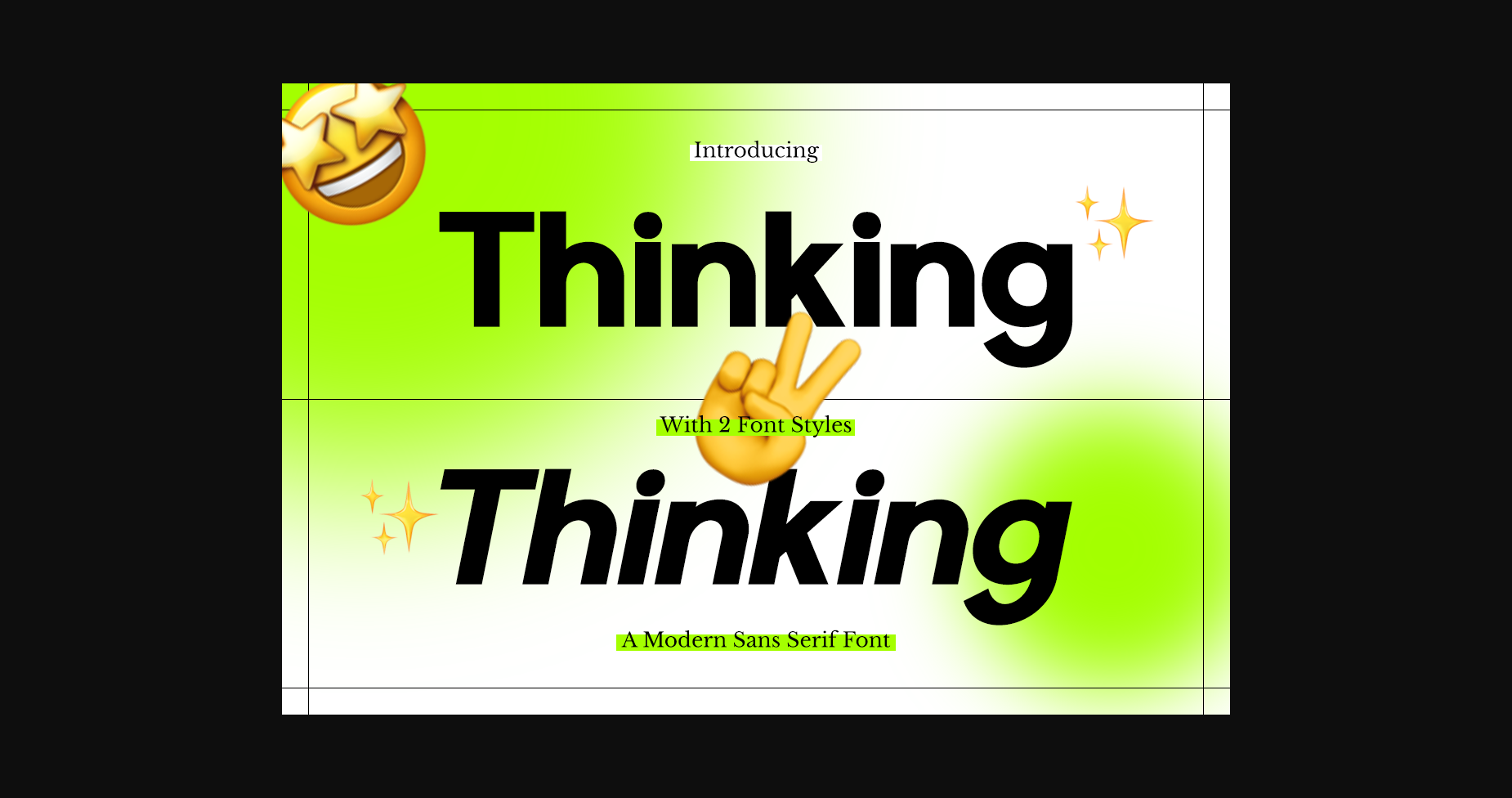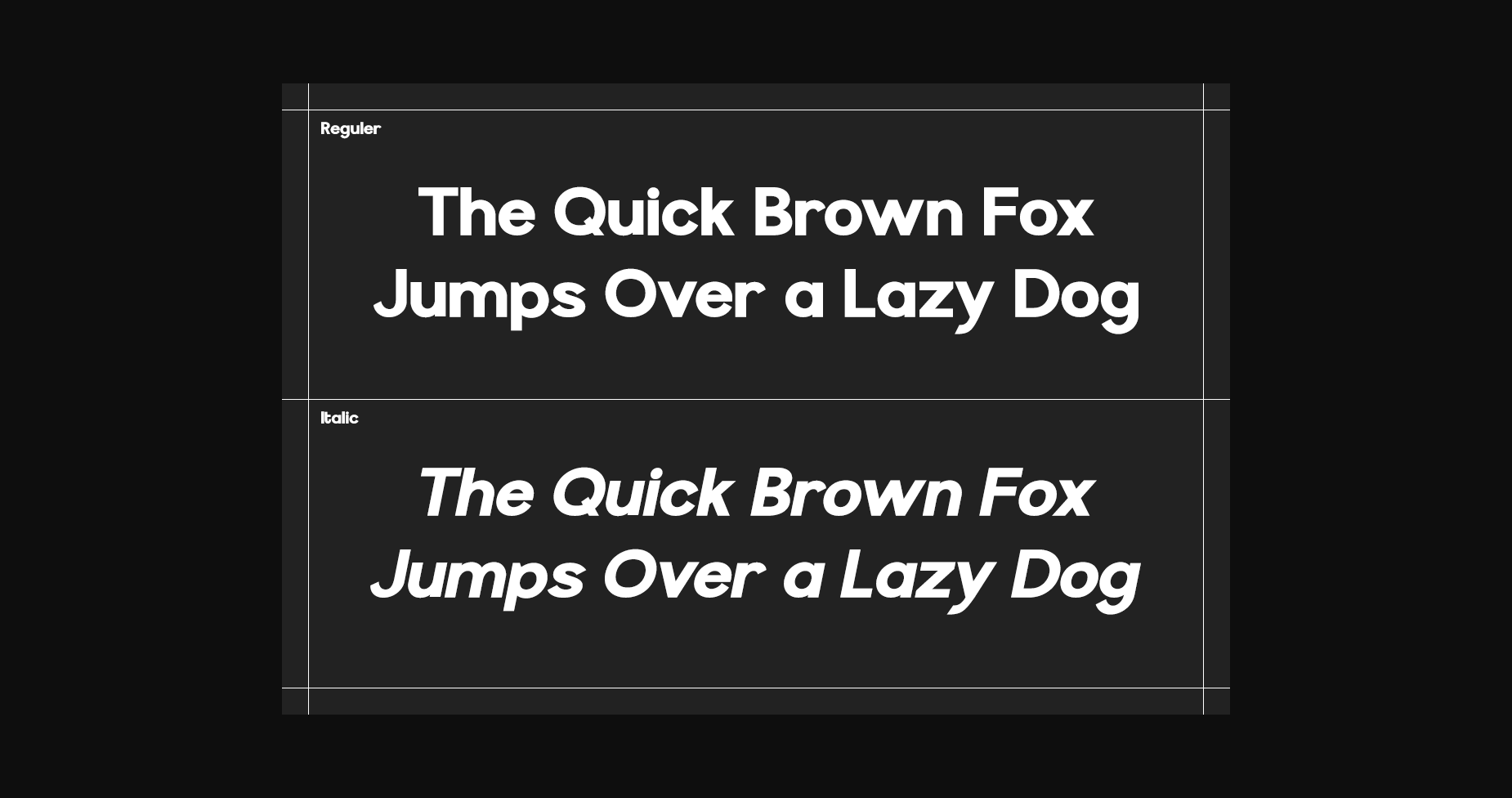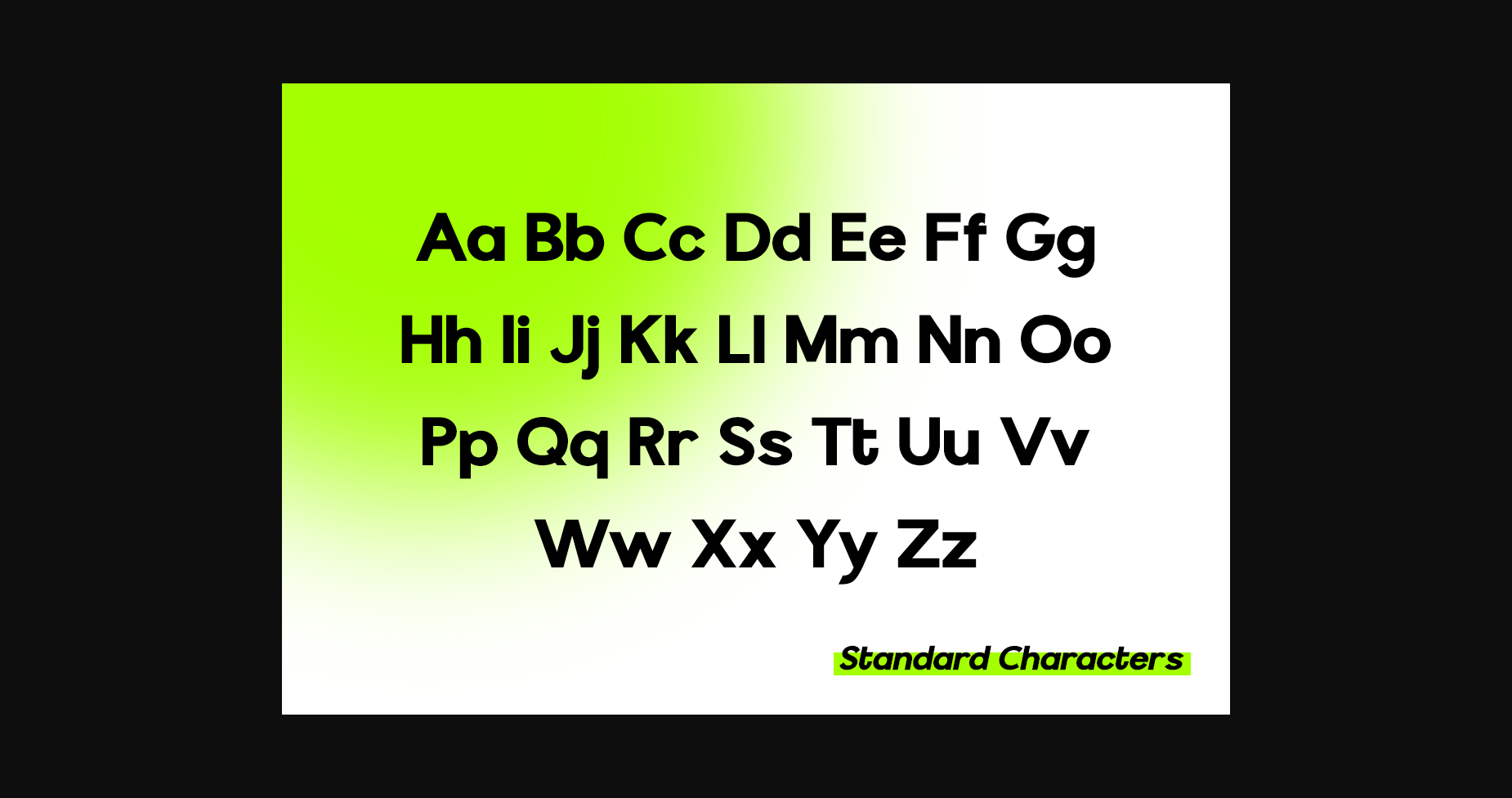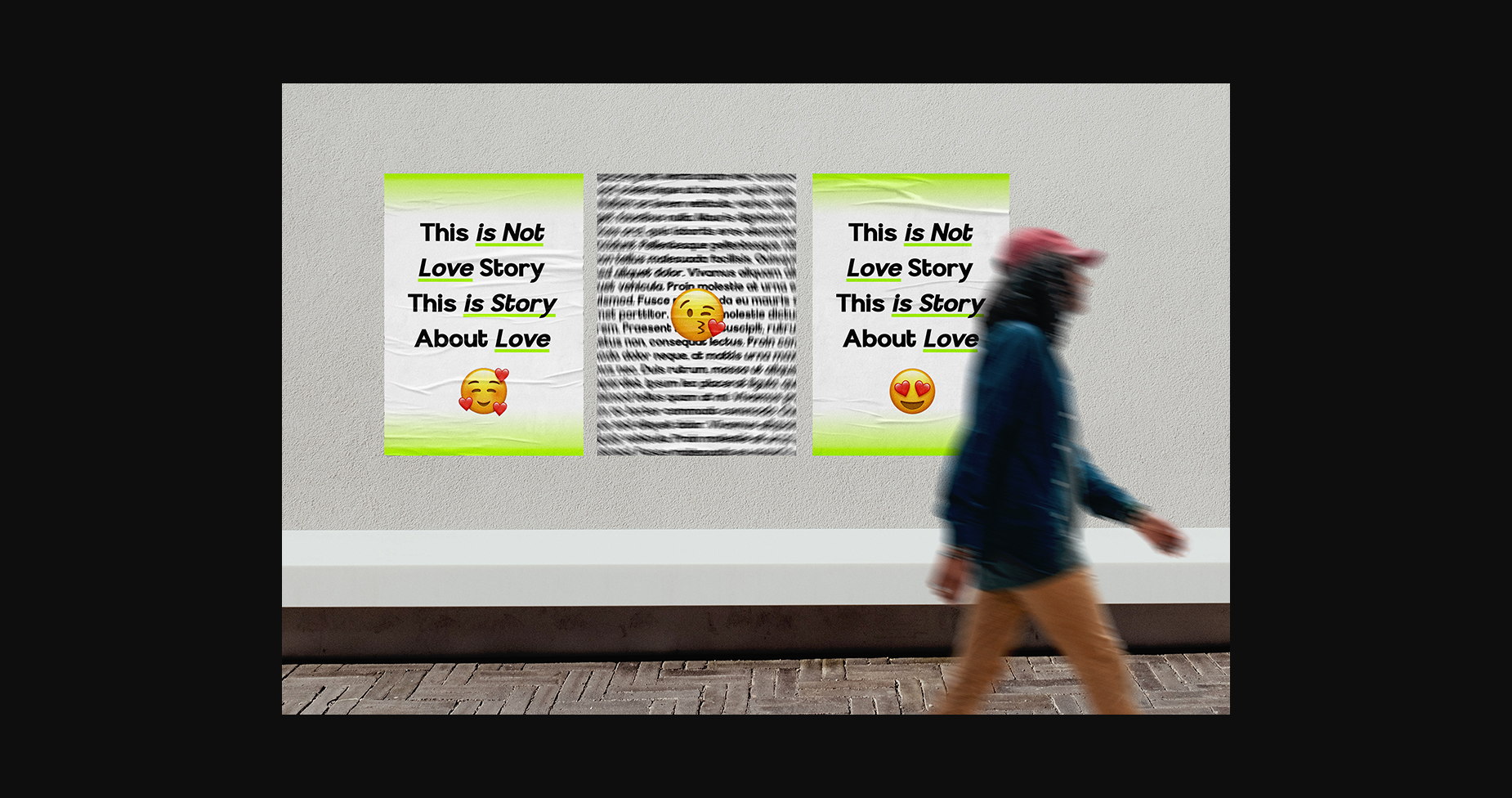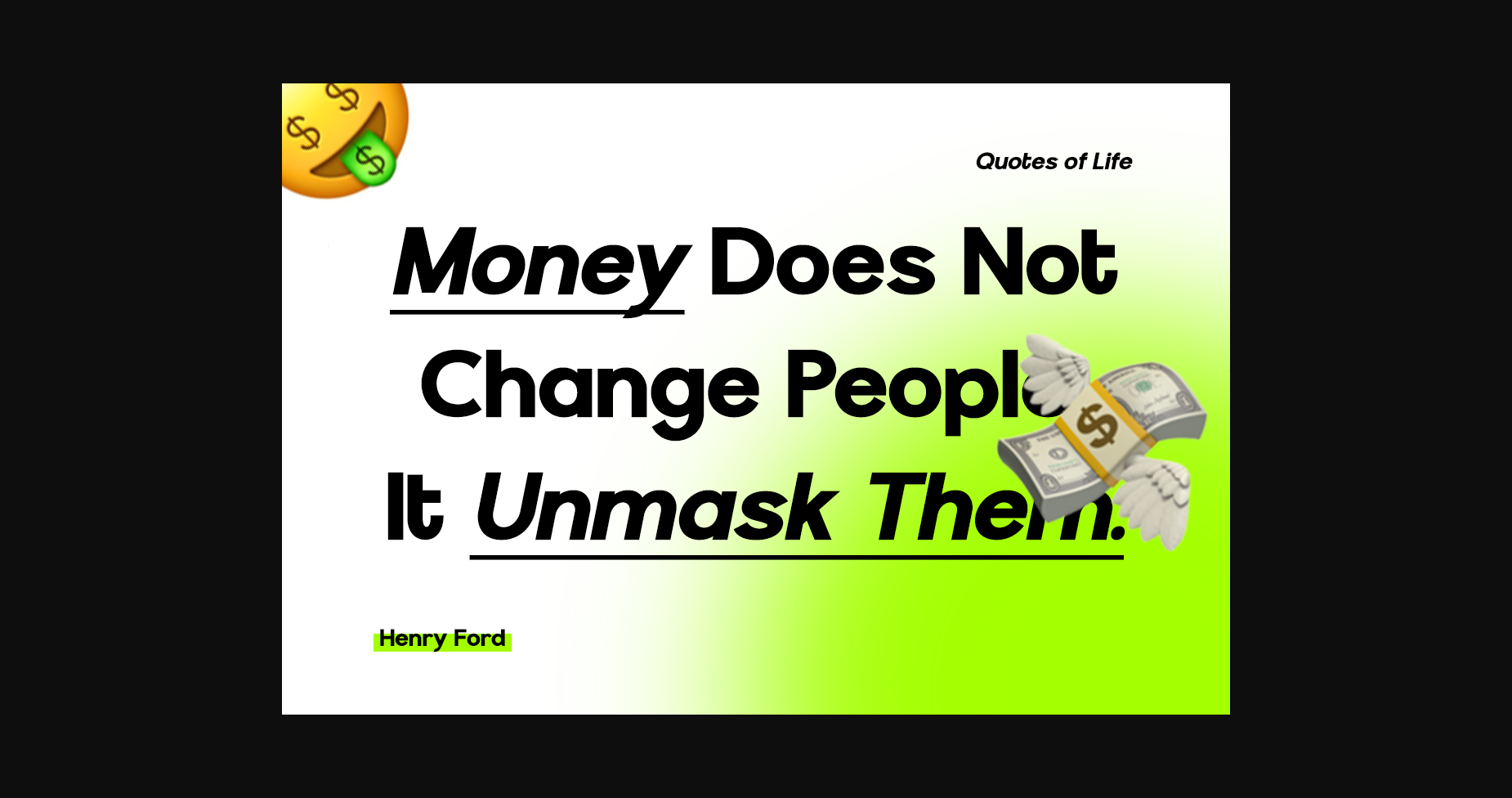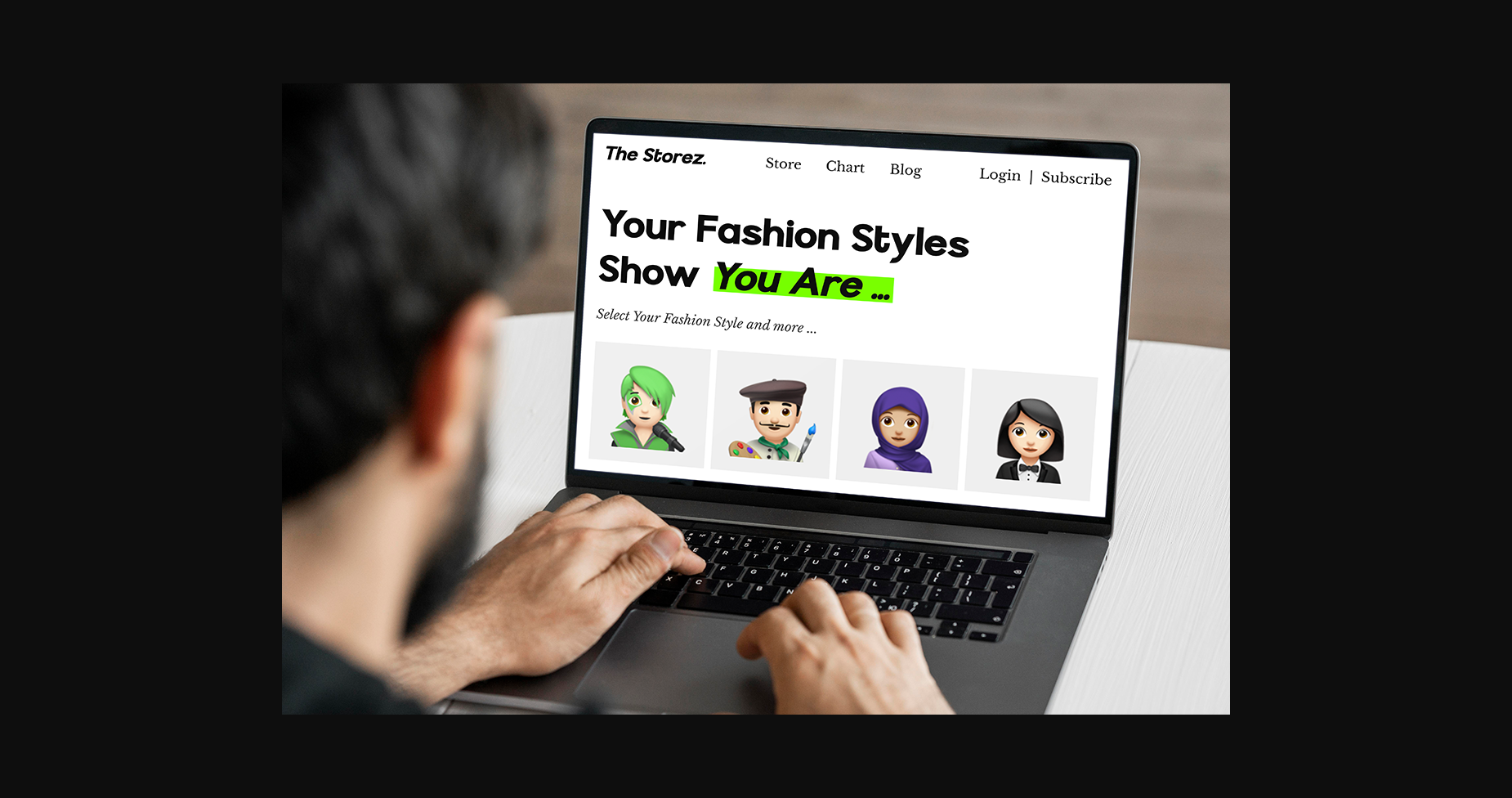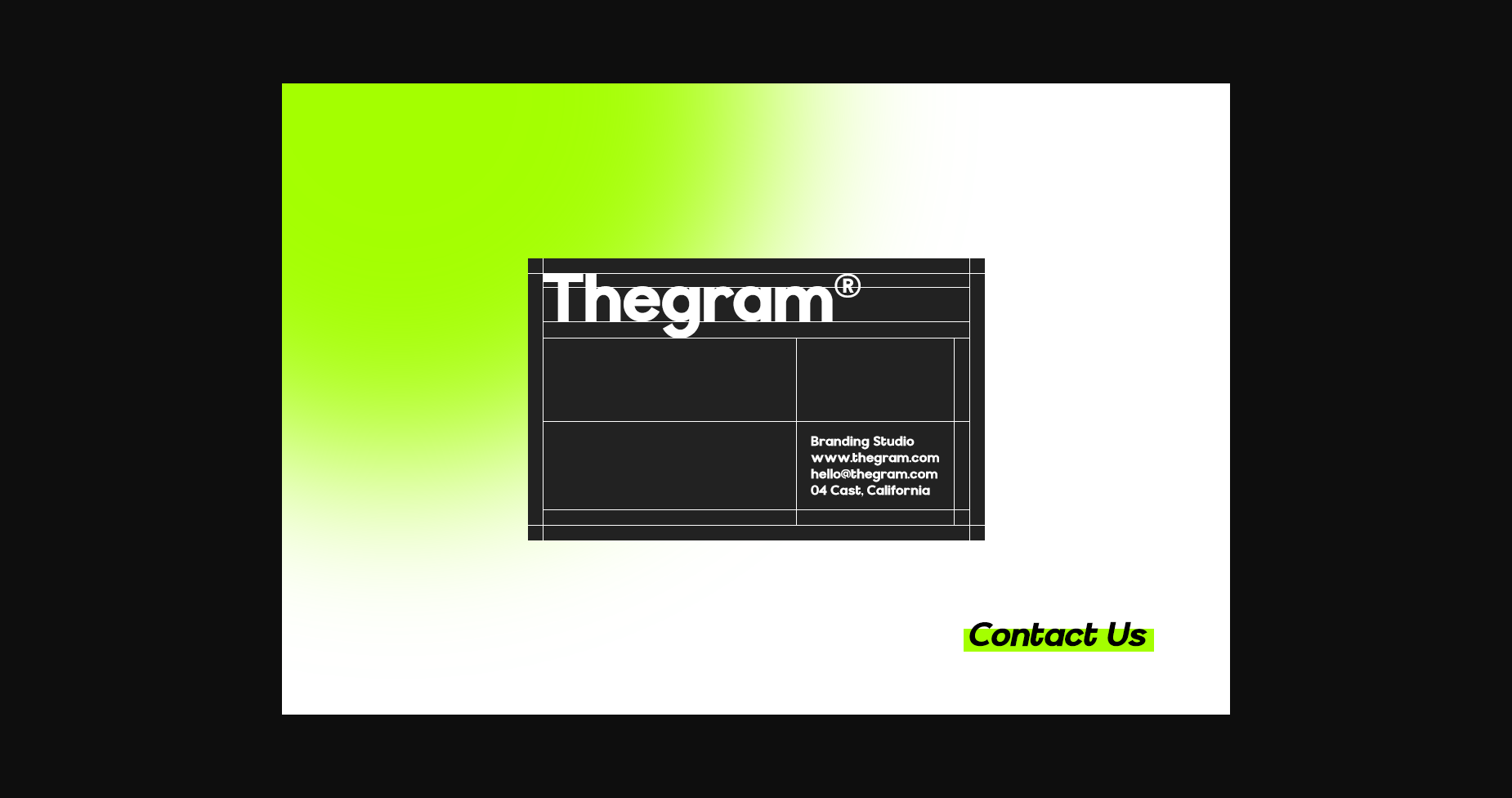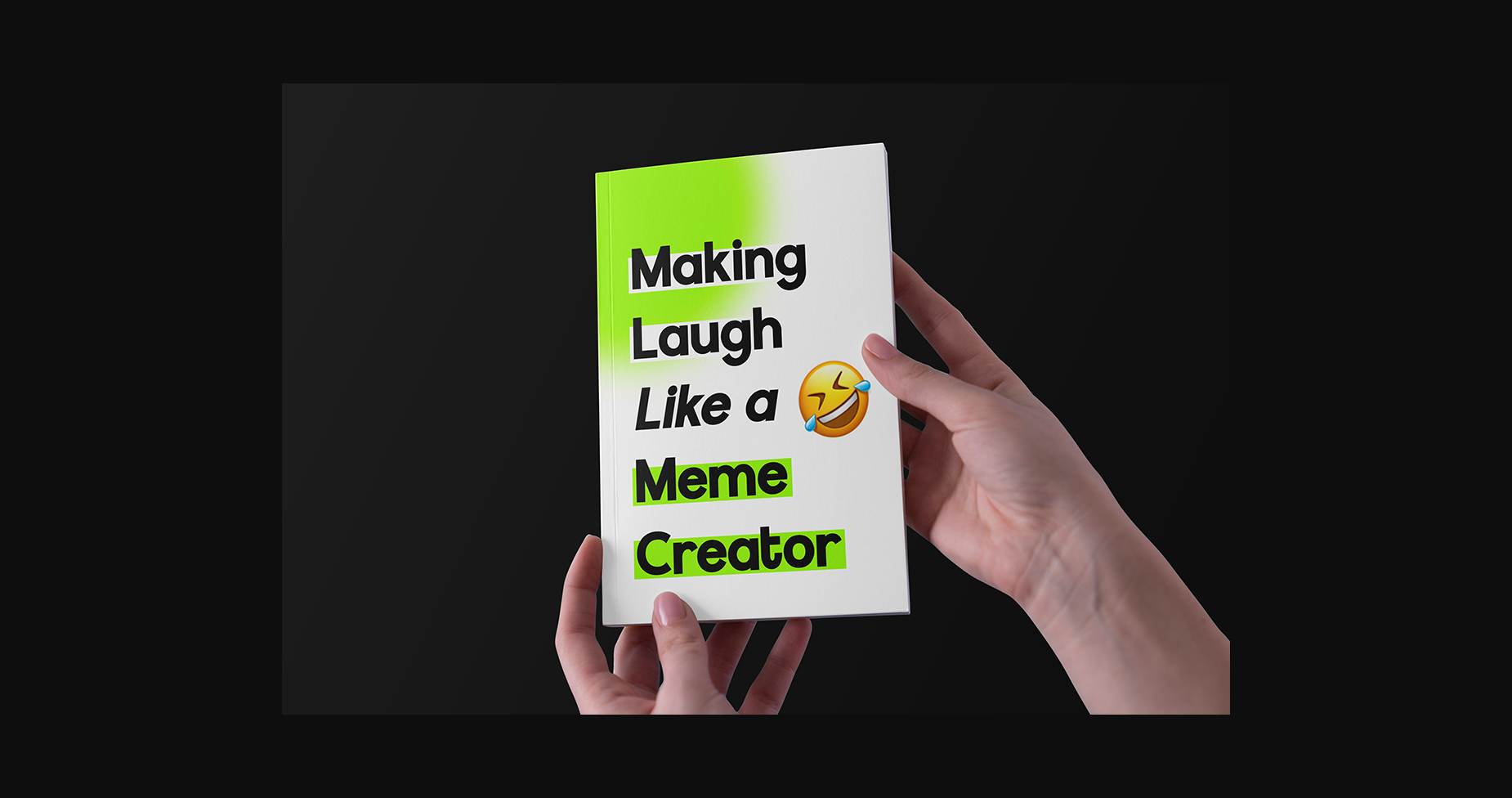
HomeSans Serif FontsThinking Font Sans Serif Fonts Thinking Font FacebookXPinterestWhatsApp 1 of 11 ... Thinking Font Poster 2... Thinking Font Poster 3... Thinking Font Poster 4... Thinking Font Poster 5... Thinking Font Poster 6... Thinking Font Poster 7... Thinking Font Poster 8... Thinking Font Poster 9... Thinking Font Poster 10... Thinking Font Poster 11... About Thinking Font Thinking is an elegant and beautiful sans serif font. It will elevate a wide range of crafting ideas, from cards to branding, labels, and many more. Add it to any of your creative projects, and make them extraordinary! DOWNLOAD NOW People also explored Jungle Boom Font Halloween Face Font Summer Weekend Font Easter Baby Font Victoria Melody Font Austral Slab Textures Font Font Pack Font Into the Wild Halloween Skeleton Font 307 0 TagsThinking Font Previous articleDaydreamer FontNext articleTextbook Font LEAVE A REPLY Cancel reply Comment: Please enter your comment! Name:* Please enter your name here Email:* You have entered an incorrect email address! Please enter your email address here Website: Save my name, email, and website in this browser for the next time I comment. Personal Use Free Special Day Personal Use Free Read more about this font Knox Personal Use Free Read more about this font Wanita Cantik Personal Use Free Read more about this font Breather Personal Use Free Read more about this font BLOG Free vs Paid Fonts: Why Investing in Premium Fonts Is Worth It Free vs Paid Fonts: Why Premium Fonts Are Worth It in 2025 The debate of free vs paid fonts continues in the design world. While... How to Cut Any Font on Cricut: Convert a Font to SVG (Free) Free Fonts Risk: Why Free Fonts Can Be Dangerous for Designers Transform Your Website: Elevate Your Typography with 7 Best Web Font Generators